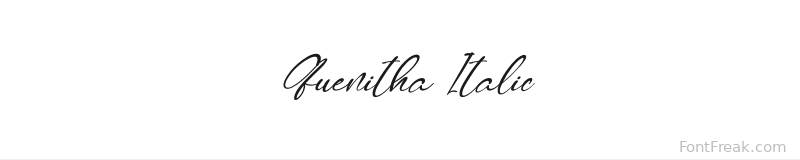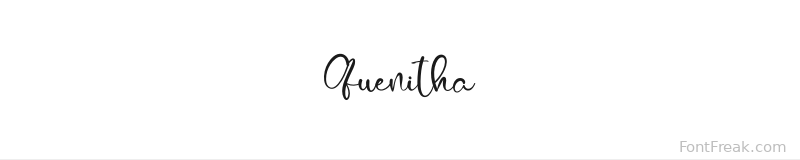
Quenitha Italic
Quenitha
About Quenitha Italic
Quenitha Italic is a beautifully crafted script typeface designed by Kong Font in 2020, classified as a decorative font that adds a touch of elegance to various design projects. The typeface features fluid, sweeping strokes that create a sense of movement and grace, making it perfect for conveying emotion and style. With a moderate stroke weight and gentle contrast, Quenitha Italic maintains readability while showcasing its artistic flair. The spacing between characters is well-balanced, ensuring that the text flows harmoniously, making it suitable for both headlines and body text.
This versatile font shines in specific use cases, including wedding invitations where its romantic curves can capture the essence of love and celebration. It also works exceptionally well for branding and logo designs, lending a unique touch to small businesses looking to stand out. Additionally, Quenitha Italic is ideal for restaurant menus, as it can evoke a sense of sophistication and culinary artistry. Graphic designers may find it particularly appealing for creating social media graphics and promotional materials, where a stylish touch is essential to attract attention.
What truly sets Quenitha Italic apart is its ability to blend elegance with versatility, making it an essential addition to any designer's toolkit. For those interested in enhancing their design aesthetics, the Quenitha Italic font free download is a must-have to bring creativity and sophistication to your work.